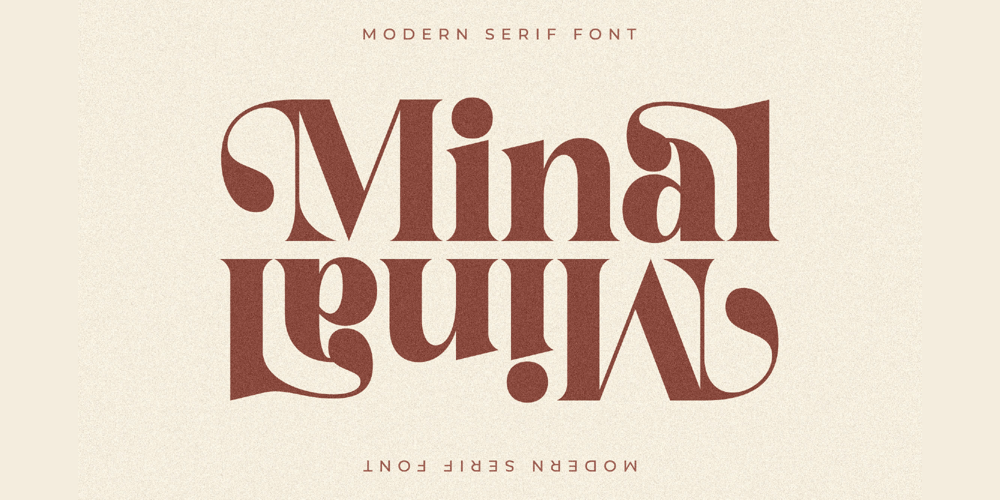
Minal
Minal Font Family was designed by Heru Utama Putra and published by Letterena Studios. Minal contains 2 styles and family package options. Minal is a stylish and fashionable serif font. Its unique characters and modern vibe, make it the perfect typeface for a wide range of chic designs. This font is PUA encoded which means you can access all of the glyphs and swashes with ease!